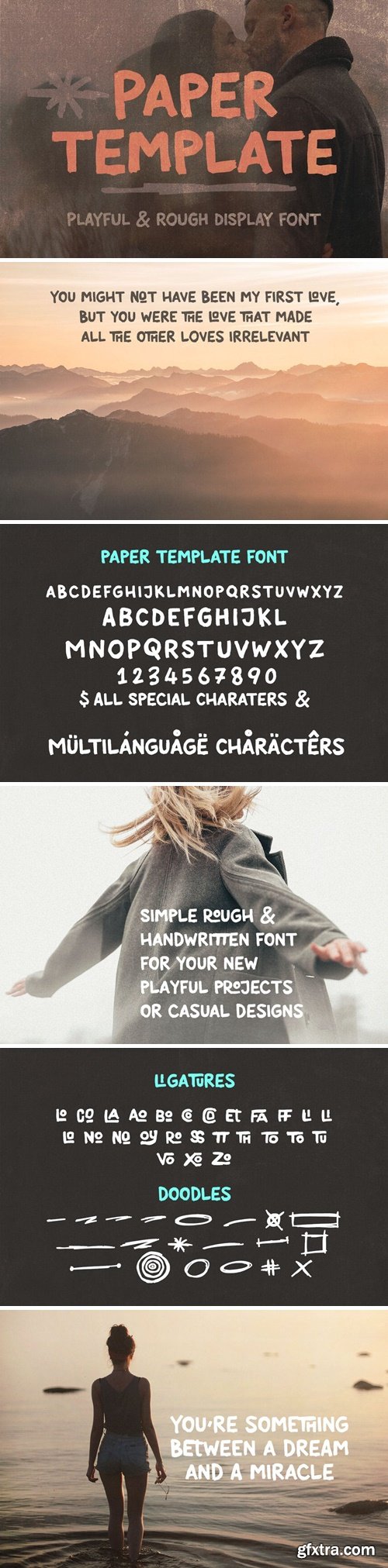
Paper Template Rough Casual Font
Casual, simple, rough, handwritten and bold marker sans serif font for your new projects. With multi language support and casual artistic or street style ;)